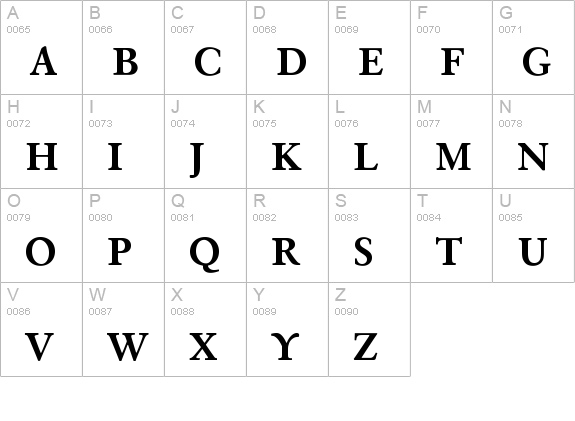
EldoradoText-Bold is a strong, high-contrast variant in the EldoradoText typeface family \xE2\x80\x94 well suited to headlines, attention-grabbing titles, and strong calls-to-action.
EldoradoText-Bold font is a bold and versatile typeface that exudes elegance and sophistication. With its clean lines and modern aesthetic, this font is perfect for a wide range of design projects, from branding to editorial design. The bold weight of EldoradoText-Bold commands attention and makes a strong statement, while still maintaining a sense of refinement. What sets EldoradoText-Bold apart is that it is not only stylish and functional, but also free for personal and commercial use. You can easily download this font for free at FontsMarket.com, making it accessible to designers of all levels. Add a touch of luxury and professionalism to your projects with EldoradoText-Bold font today.